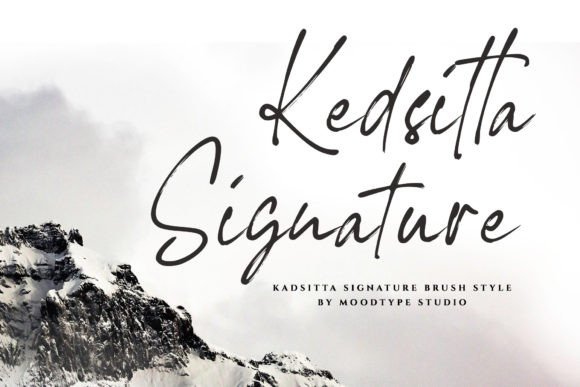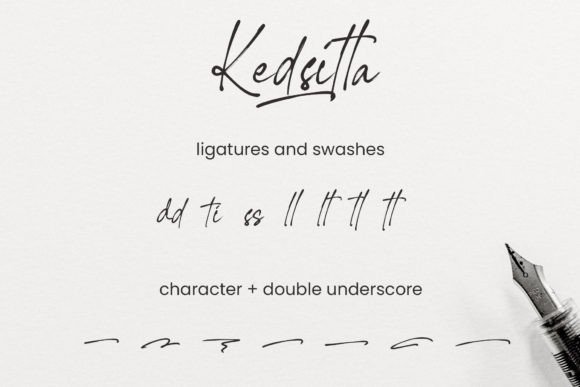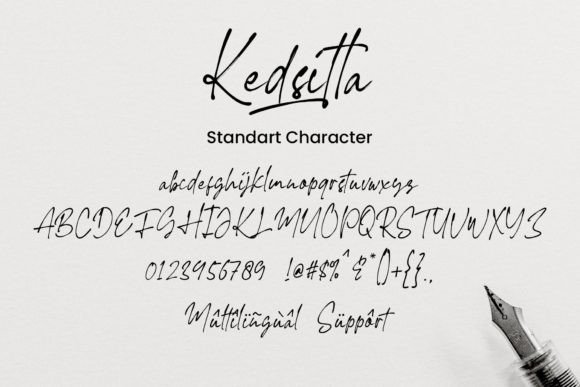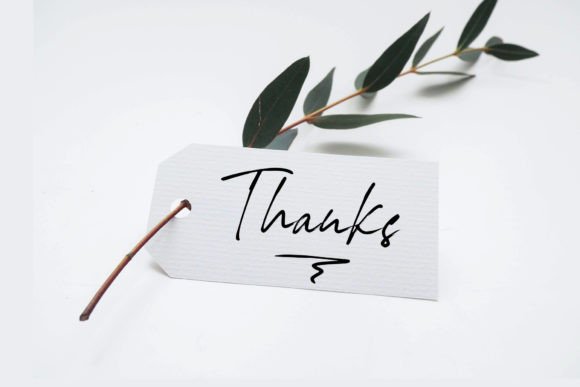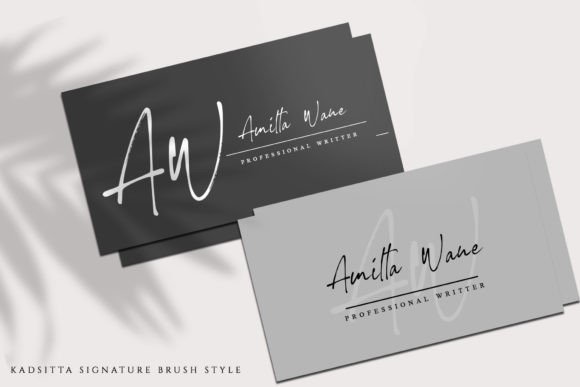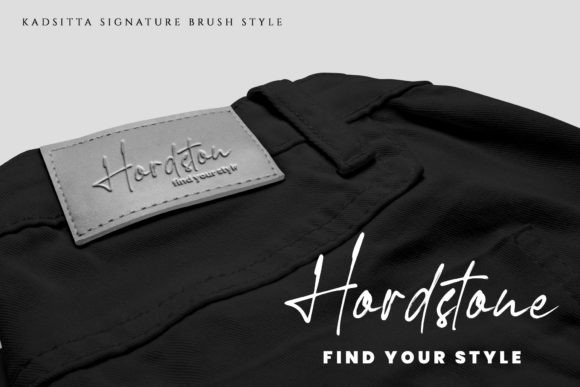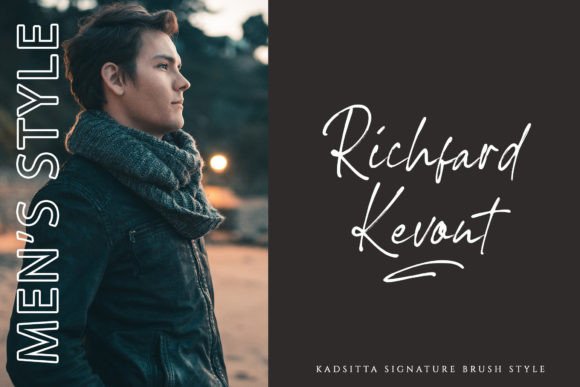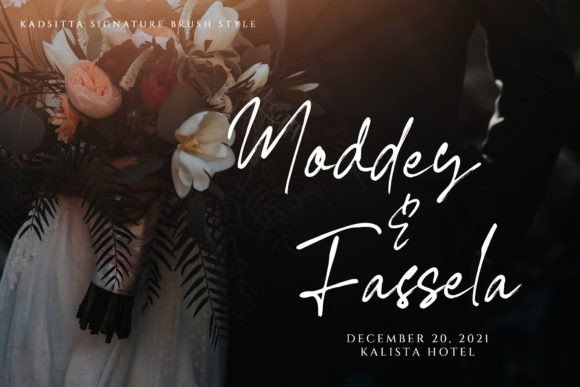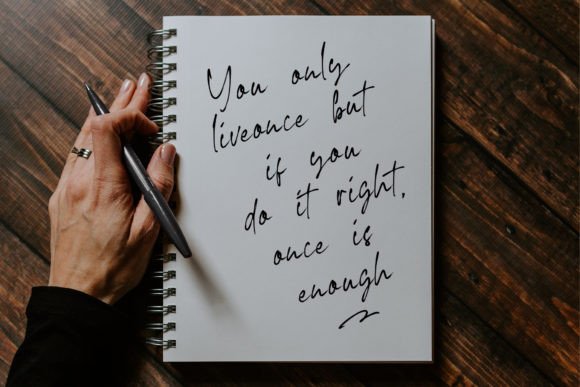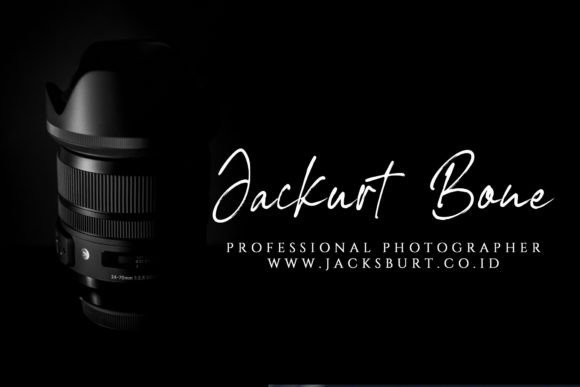
Kedsitta Signature Font
About Kedsitta Signature Font
Kedsitta Signature is a textured brush handwritten script font. This font is perfect for branding projects, logos, wedding designs, social media posts, advertisements, product packaging, labels, stationery, and any projects that need a handwritten touch.